What are video game fonts? Understanding video game fonts is essential for designers who want to create immersive and visually engaging designs. Typography plays a major role in shaping the identity of a game or gaming-related project. From fantasy adventures to horror survival games, fonts help communicate the mood, genre, and personality of the design.
Video game typography is not just decorative; it is a key part of storytelling. They influence how users feel and interact with visual content. In this complete guide, we will explore what video game fonts are, why they matter, their characteristics, benefits, and how to use them effectively in design.
What Are Video Game Fonts?
Video game fonts are typefaces specifically designed or commonly used to reflect a game’s theme. These fonts are often stylized and expressive, and align with specific game genres such as fantasy, horror, adventure, or cartoon.
Unlike standard fonts, video game typography is created to enhance visual storytelling. These fonts often include unique shapes, textures, and effects that match the game’s atmosphere.
For example:
- Fantasy games use decorative and medieval-style fonts
- Horror games use rough and distorted fonts
- Cartoon games use playful and rounded fonts
These fonts help create a strong visual identity and make designs more engaging.
Why Video Game Fonts Matter in Design
Video game typefaces matter because they:
- Strengthen storytelling and immersion
- Define the game genre visually
- Improve user experience
- Enhance branding and recognition
In gaming design, every visual element must support the theme, and typography is one of the most powerful elements.
For example, a horror font instantly creates tension, while a cartoon font makes a design feel fun and friendly.
Characteristics of Video Game Fonts
Adventure Fonts
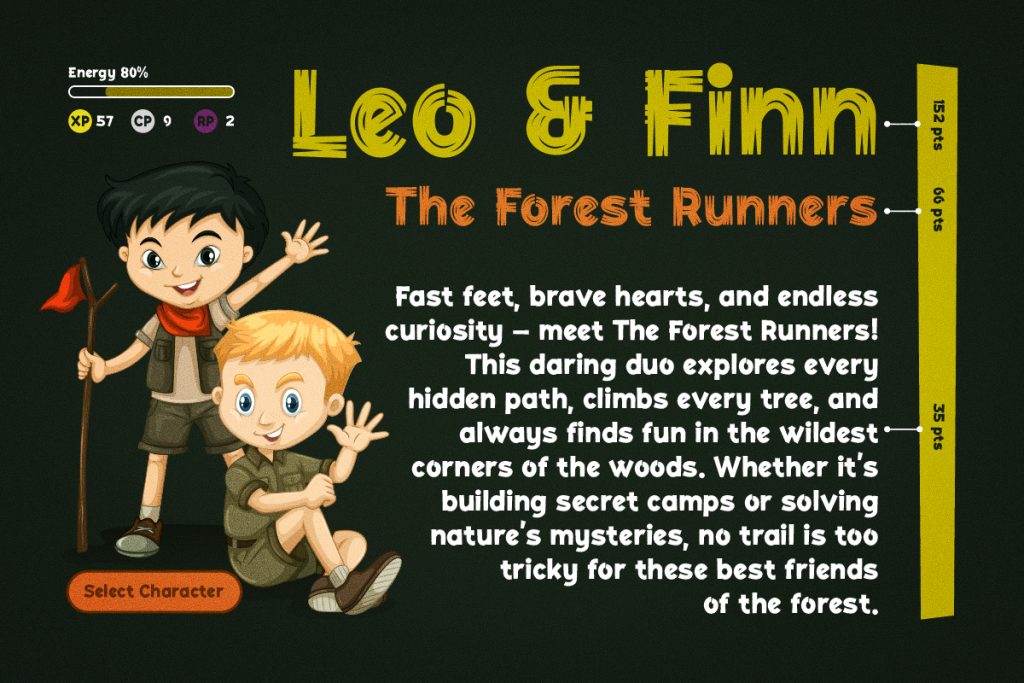
Adventure fonts are often used in exploration and action-based games.
Characteristics:
- Bold and dynamic shapes
- Sharp edges or strong strokes
- Energetic and heroic feel
These fonts are designed to convey movement, excitement, and discovery.
Fantasy Fonts
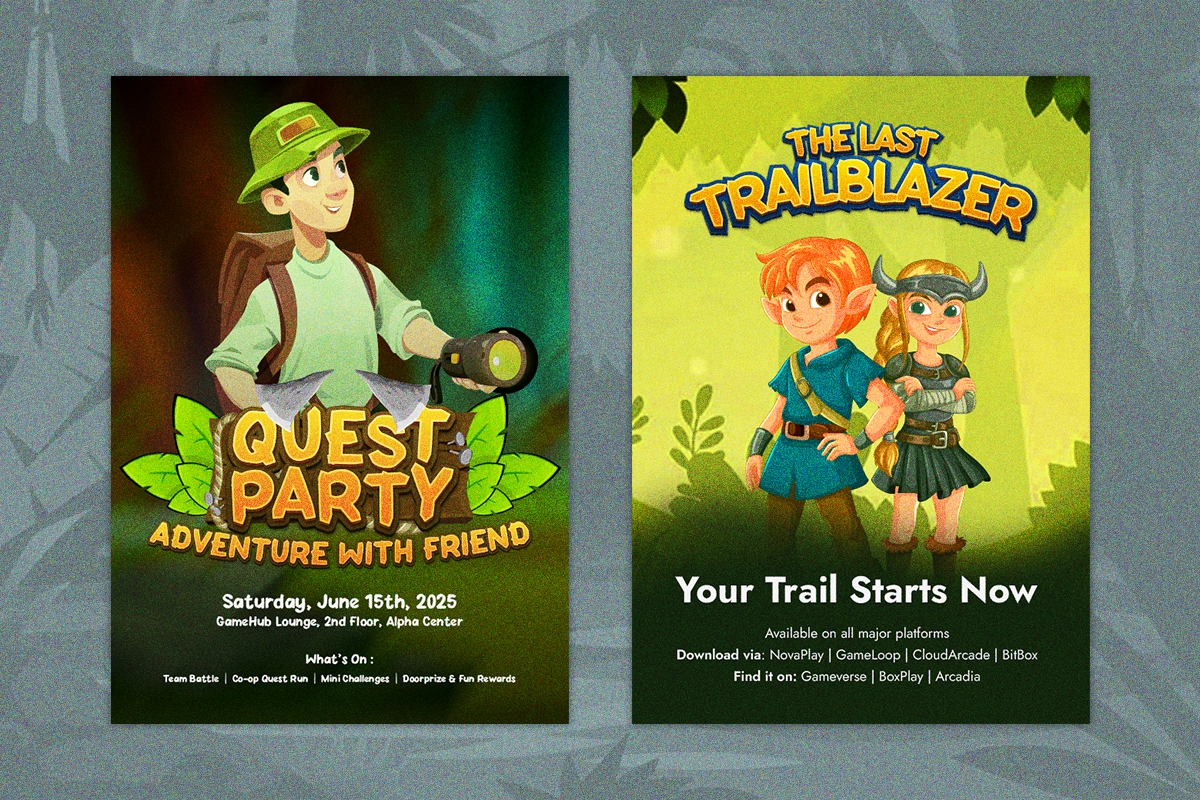
Fantasy fonts inspired by magical and medieval themes.
Characteristics:
- Decorative and detailed
- Elegant curves and ornaments
- Mystical and immersive style
They are commonly used in RPG and fantasy-themed designs.
Horror Fonts
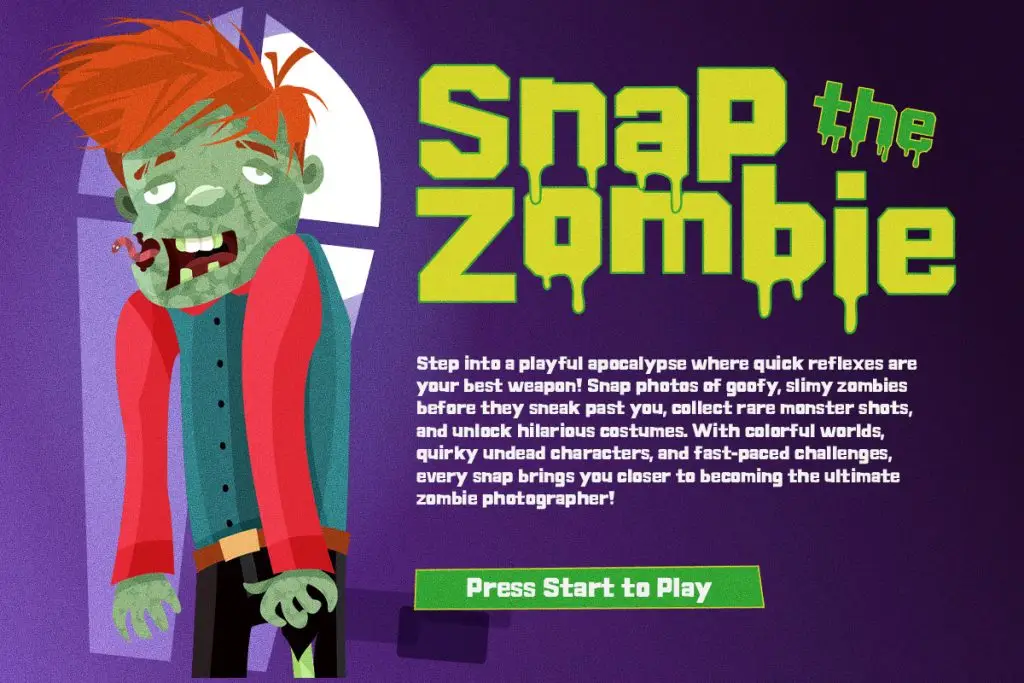
Horror fonts are designed to create fear and tension.
Characteristics:
- Distorted or broken letterforms
- Rough textures
- Dripping or scratch effects
These fonts are perfect for zombie, survival, or thriller themes.
Cartoon Fonts
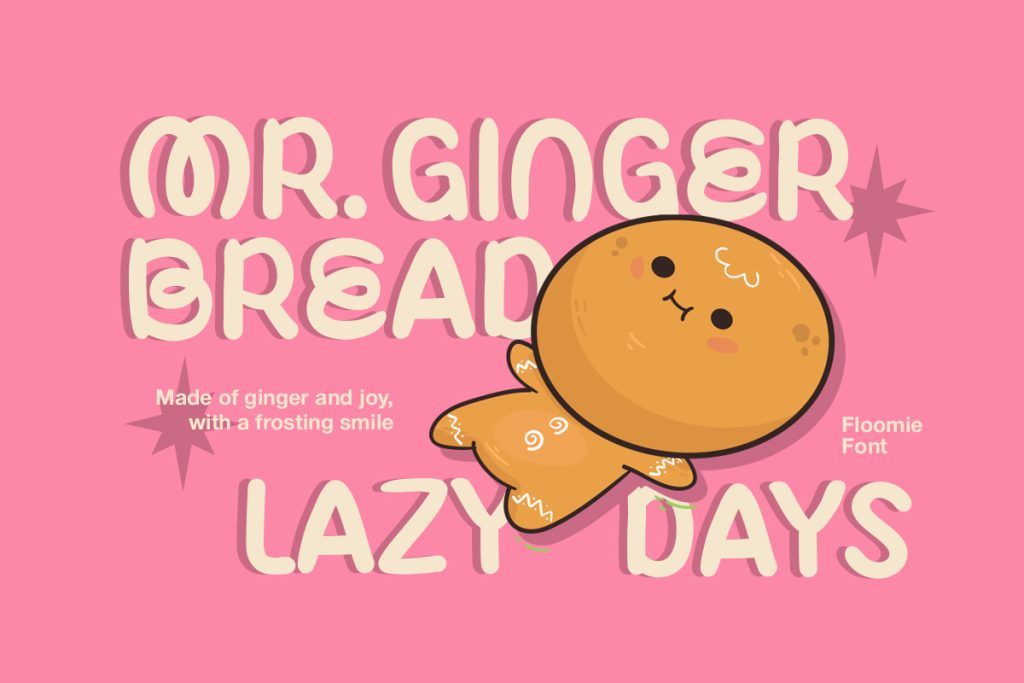
Cartoon fonts are playful and fun.
Characteristics:
- Rounded shapes
- Bright and friendly appearance
- Easy to read
They are ideal for casual games and kid-friendly designs.
Benefits of Using Video Game Fonts
1. Strong Visual Identity
Video game typefaces help create a unique and recognizable design style.
2. Emotional Connection
Different font styles evoke different emotions, such as excitement, fear, or joy.
3. Enhanced Engagement
Stylized fonts attract attention and make designs more engaging.
4. Better Theme Consistency
Typography helps maintain consistency across visuals, UI, and branding.
How to Use Video Game Fonts
Use Fonts Based on Genre
Choose fonts that match your design theme:
- Fantasy → Decorative fonts
- Horror → Distorted fonts
- Cartoon → Rounded fonts
Use for Headlines
Video game typefaces work best for titles and headings rather than long paragraphs.
Combine with Simple Fonts
Pair gaming fonts with clean fonts for better readability.
Example:
- Gaming font → Title
- Sans-serif font → Body text
How to Use Video Game Fonts Effectively
1. Maintain Readability
Even stylized fonts should be readable. Avoid overly complex designs.
2. Create Visual Hierarchy
Use font size and weight to guide the viewer’s attention.
3. Keep Design Balanced
Avoid using too many decorative fonts in one layout.
4. Test Across Platforms
Ensure your fonts look good on:
- Desktop
- Mobile
Comparing Video Game Fonts and Regular Fonts
Style
- Video game typefaces → Decorative and expressive
- Regular fonts → Simple and neutral
Purpose
- Video game typefaces → Visual impact and theme
- Regular fonts → Readability and clarity
Usage
- Video game typefaces → Headlines and branding
- Regular fonts → Body text and long content
Flexibility
- Video game typefaces → Limited usage
- Regular fonts → Highly versatile
When to Use Video Game Fonts vs Regular Fonts
Use video game typeface when:
- You want to create a strong visual impact
- Your design has a clear theme
- You are designing gaming-related content
Use regular fonts when:
- You need high readability
- You are writing long content
- You want a clean and professional look
Conclusion
So, video game fonts are expressive and stylized typefaces designed to enhance the visuals and storytelling in games. These fonts play a crucial role in defining the mood, genre, and identity of a design.
From adventure and fantasy to horror and cartoon styles, video game typefaces offer a wide range of creative possibilities. When used correctly, they can make your designs more engaging, memorable, and visually powerful.
However, designers must use them carefully, balancing creativity with readability and combining them with regular fonts when needed.